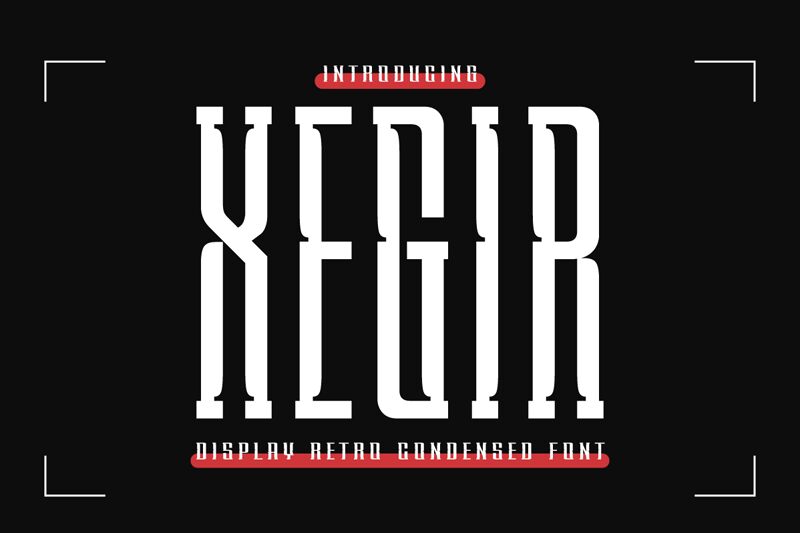
XEGIR Regular
Xegir by Twinletter is a captivating display font that commands attention. Its condensed width and bold, geometric letterforms exude a sense of strength and authority. The clean, angular edges and sharp contrast between thick and thin strokes create a striking, modern aesthetic that evokes a sense of power and sophistication.
Xegir's versatility makes it a compelling choice for a wide range of design applications. Its strong, impactful presence lends itself well to bold headlines, attention-grabbing logos, and eye-catching branding materials. Additionally, the font's clean, legible design allows it to be effectively utilized in signage, packaging, and other environments where clear communication is paramount.